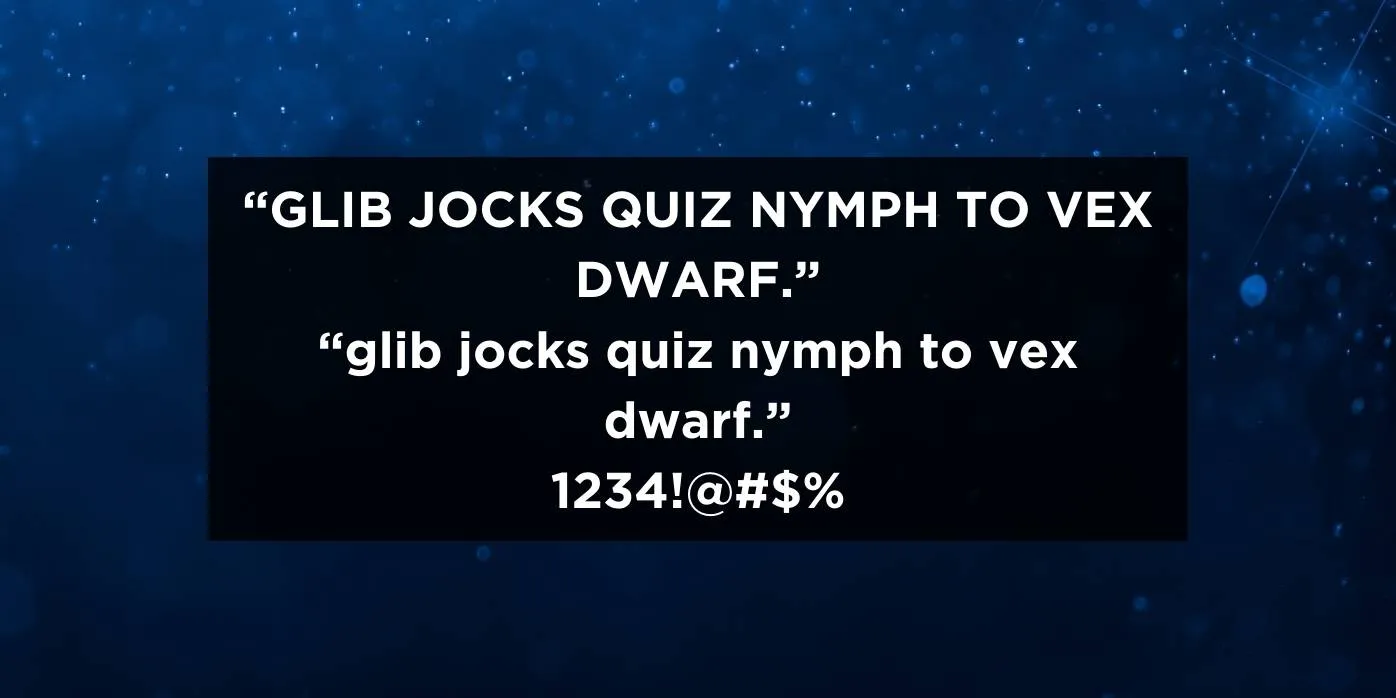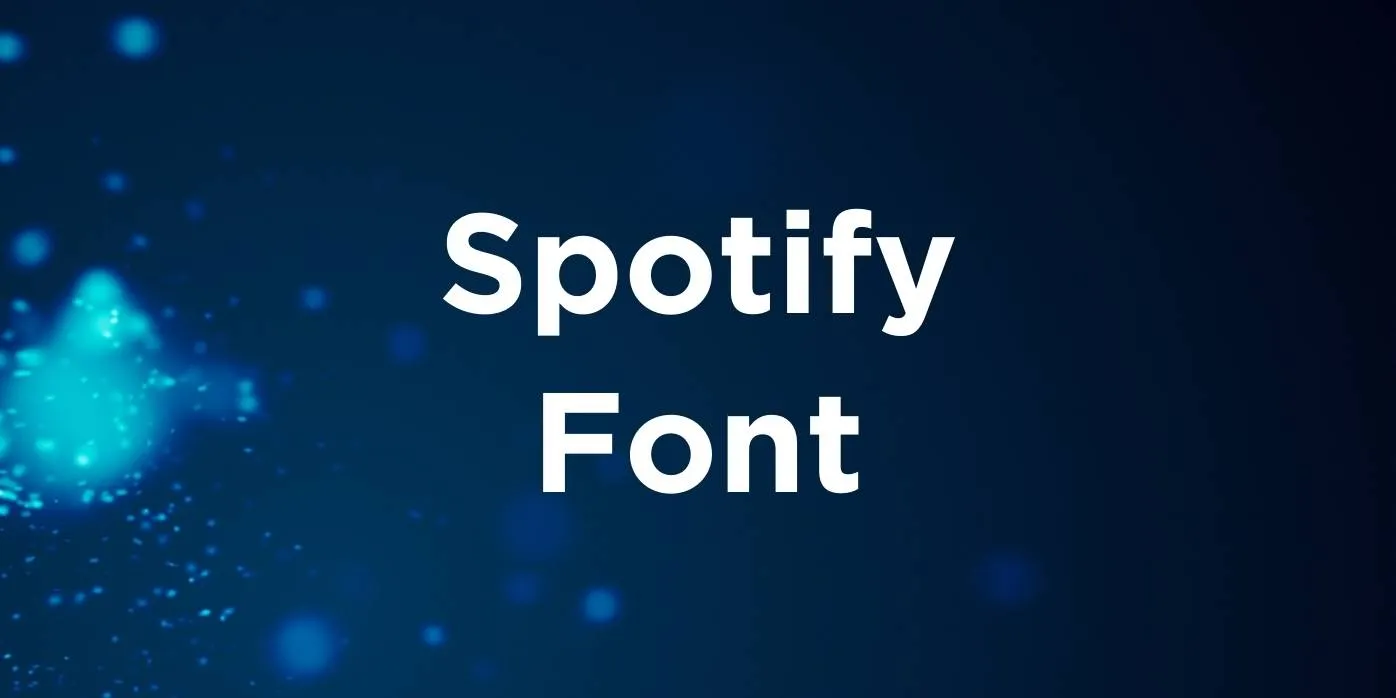
Spotify Font
Here, we present a stunning typeface known as Spotify Font. This family was designed by Andreas Holmstrom. It belongs to the sans serif family. This typeface is a great choice for any music-related project.
It is well famed for CSS. The Spotify font family comes in two variants: Spotify Sans and Spotify Script. The former is a clean and modern sans serif, while the latter is a playful script font. Both fonts are available in four weights (light, regular, bold, and black), and they come with Latin and Cyrillic character sets.
For more classic features, you will have to use its alternative formata font which has the same features. The copy and paste function of this typeface is so classic. You can also use Canva and Adobe. Spotify Sans is the primary typeface of the Spotify brand.
It’s used for all written communications, from the app and website to marketing materials and social media posts. Spotify Script is used sparingly, mostly for headlines and logotypes. When used in combination with Spotify Sans, it helps create a friendly and approachable. You can also use its generator tool for different projects.